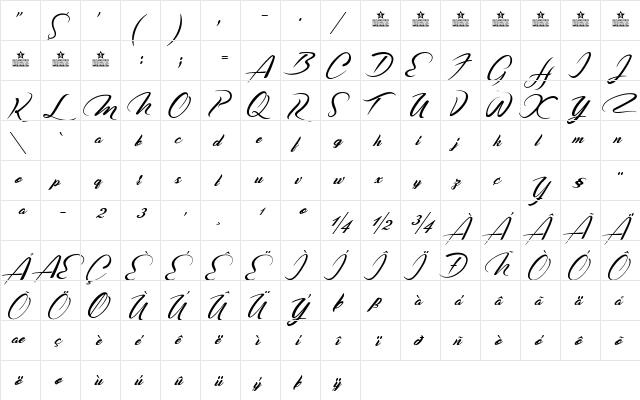
Casablanca Noir Personal Use Regular
| Foundry | Billy Argel |
| Designer | Billy Argel |
Design Context for Casablanca Noir Personal Use Typeface
Casablanca Noir Personal Use is a composed and adaptable typeface that performs quietly and consistently across a wide range of design contexts.